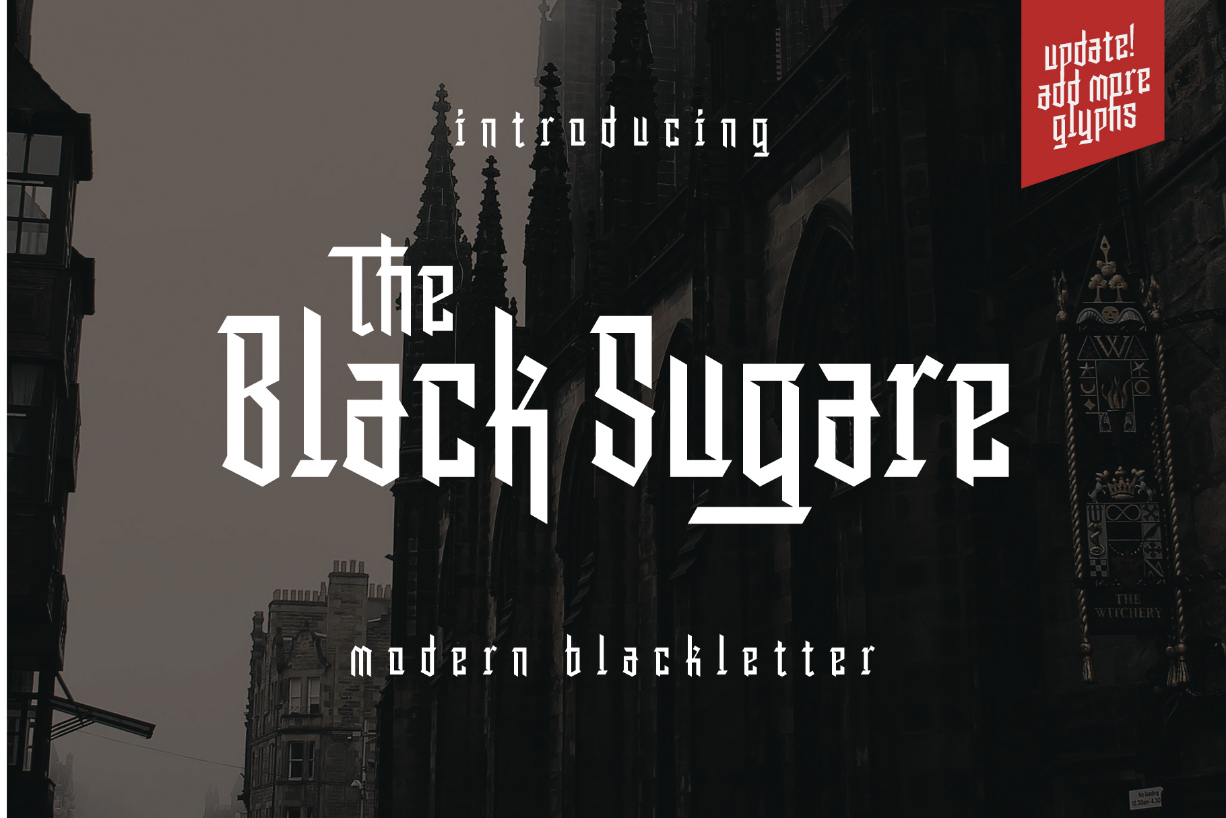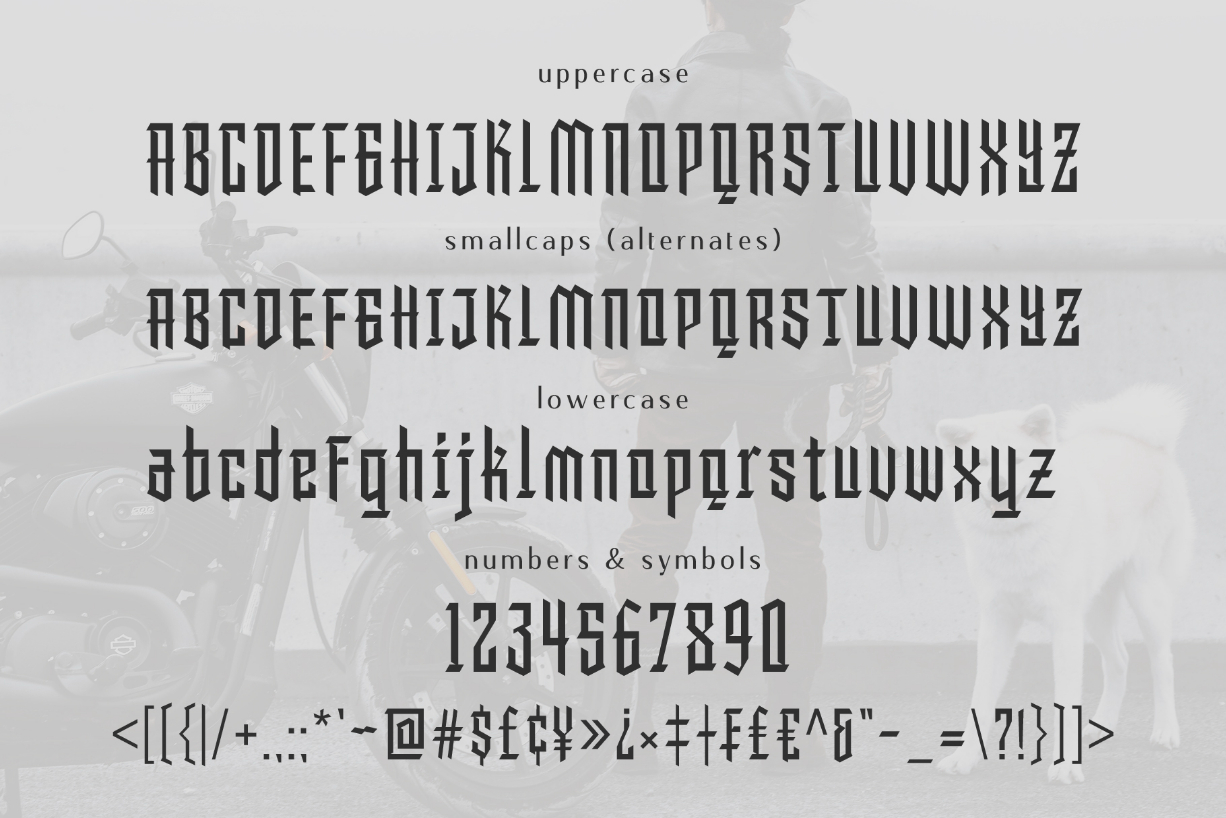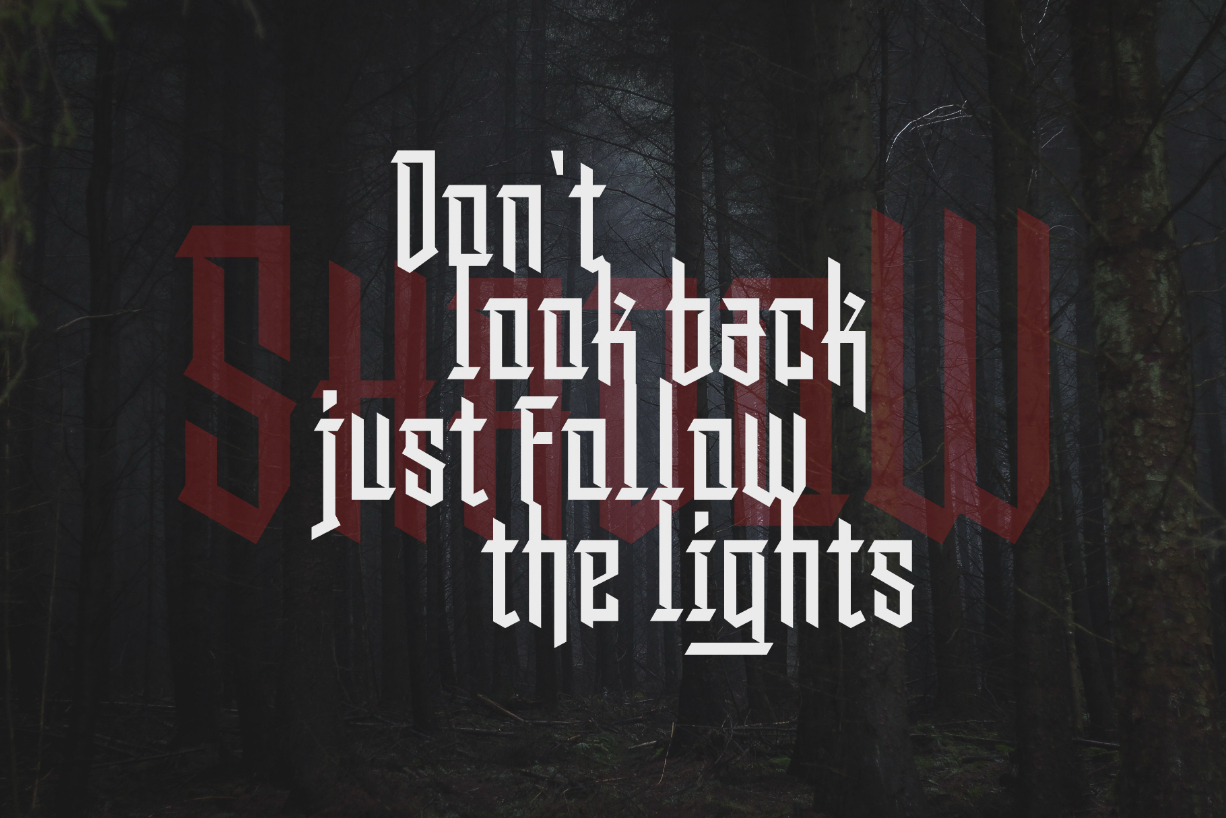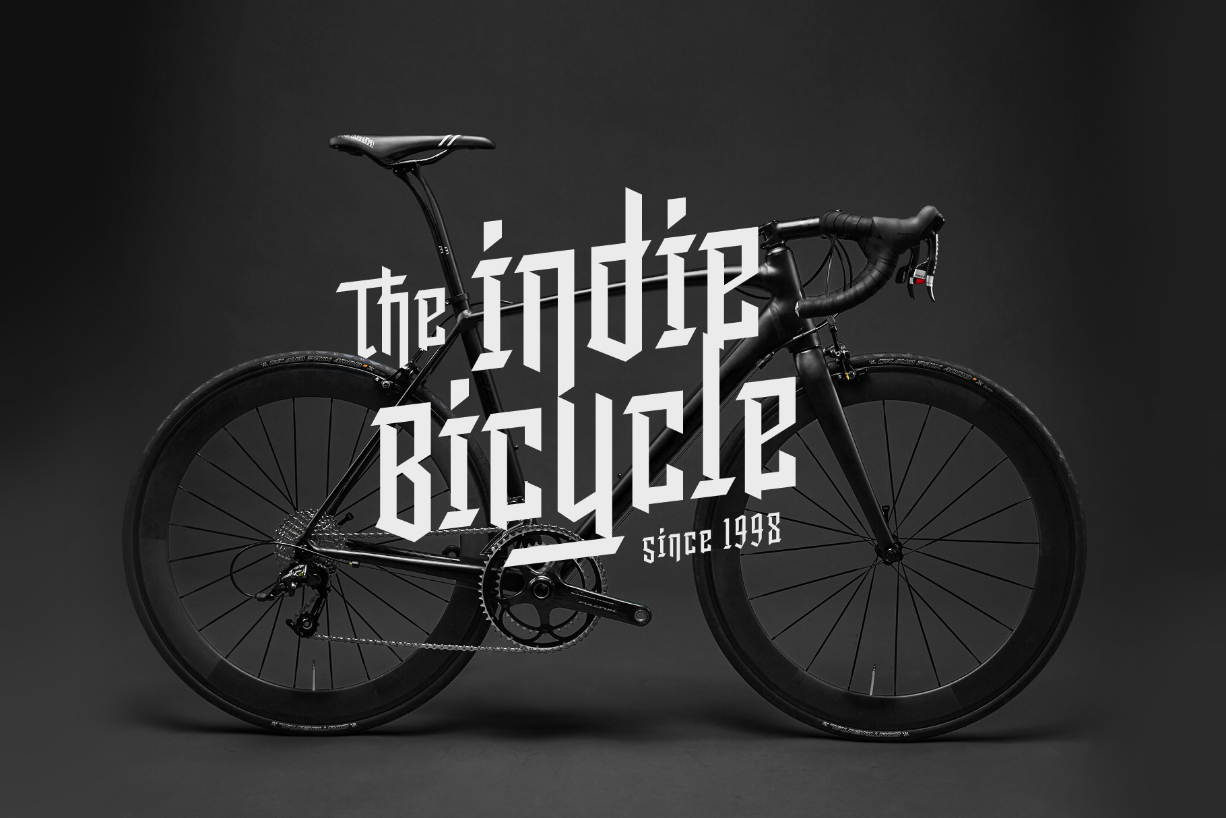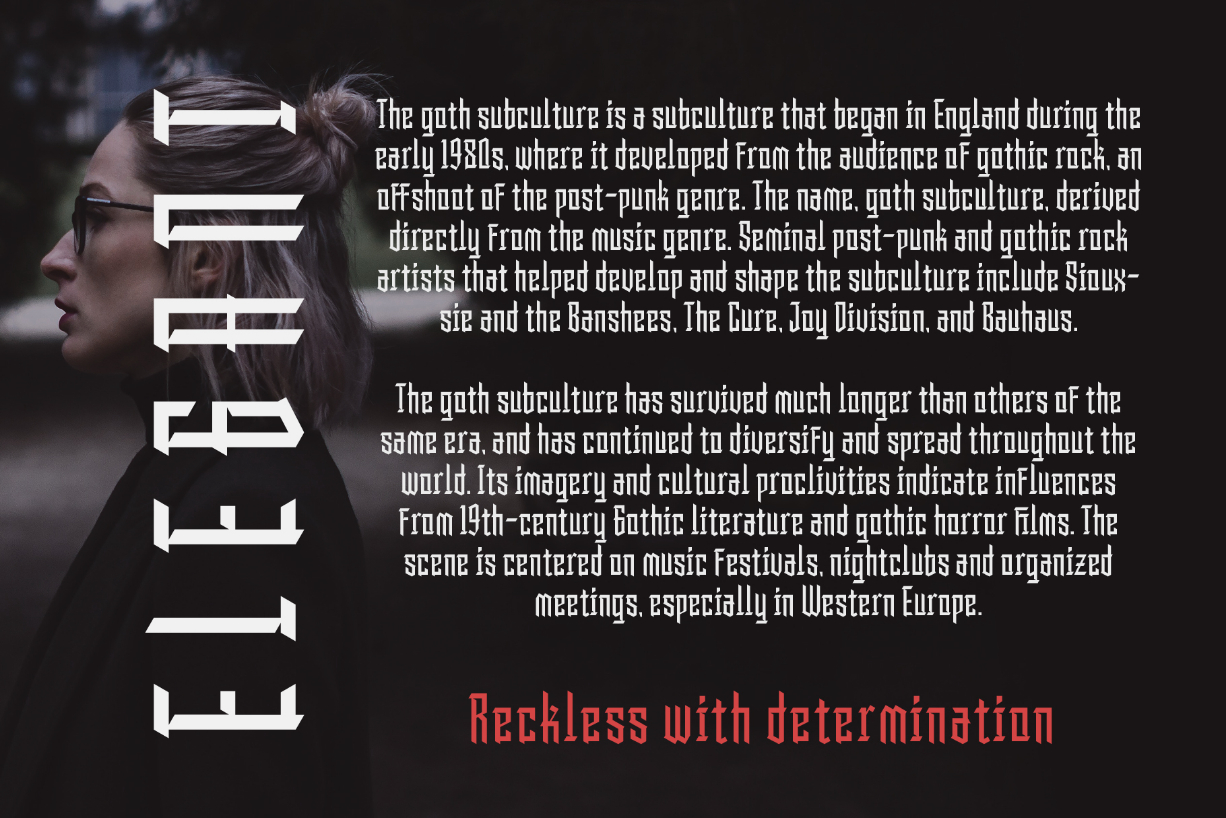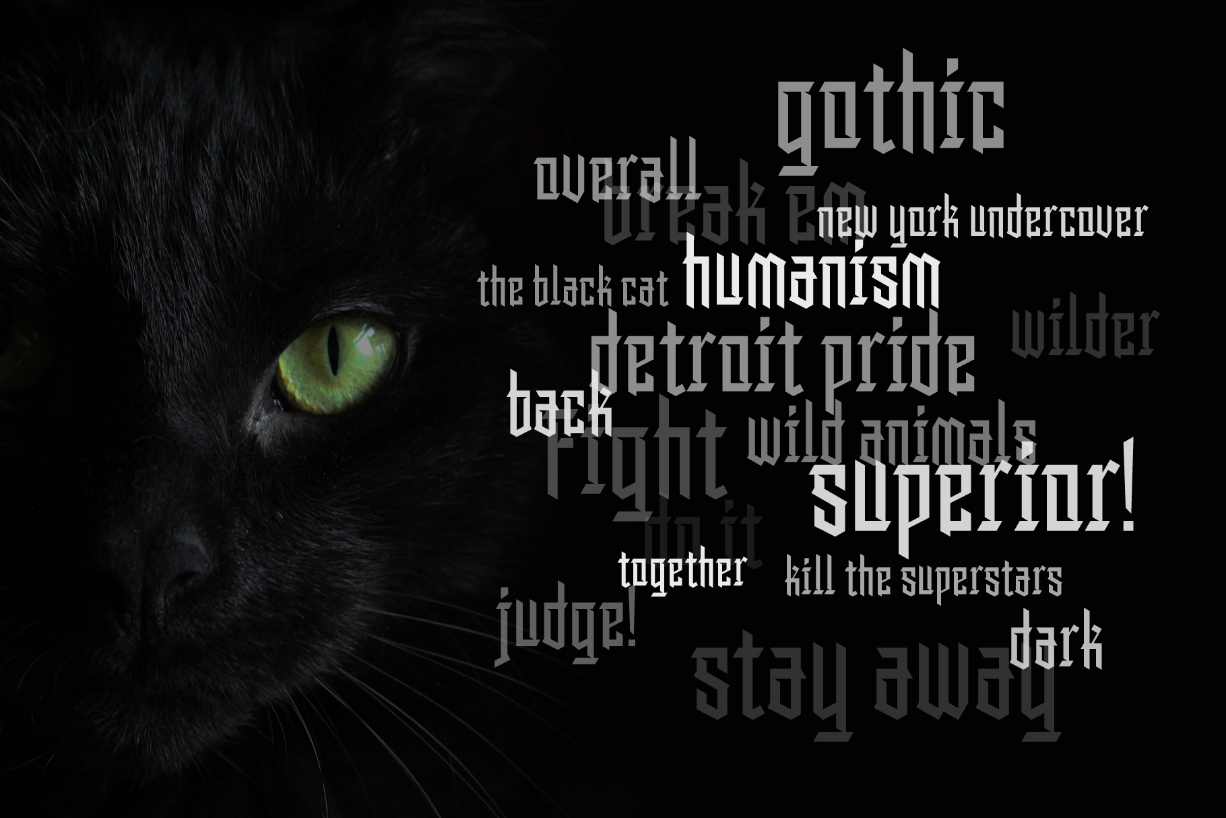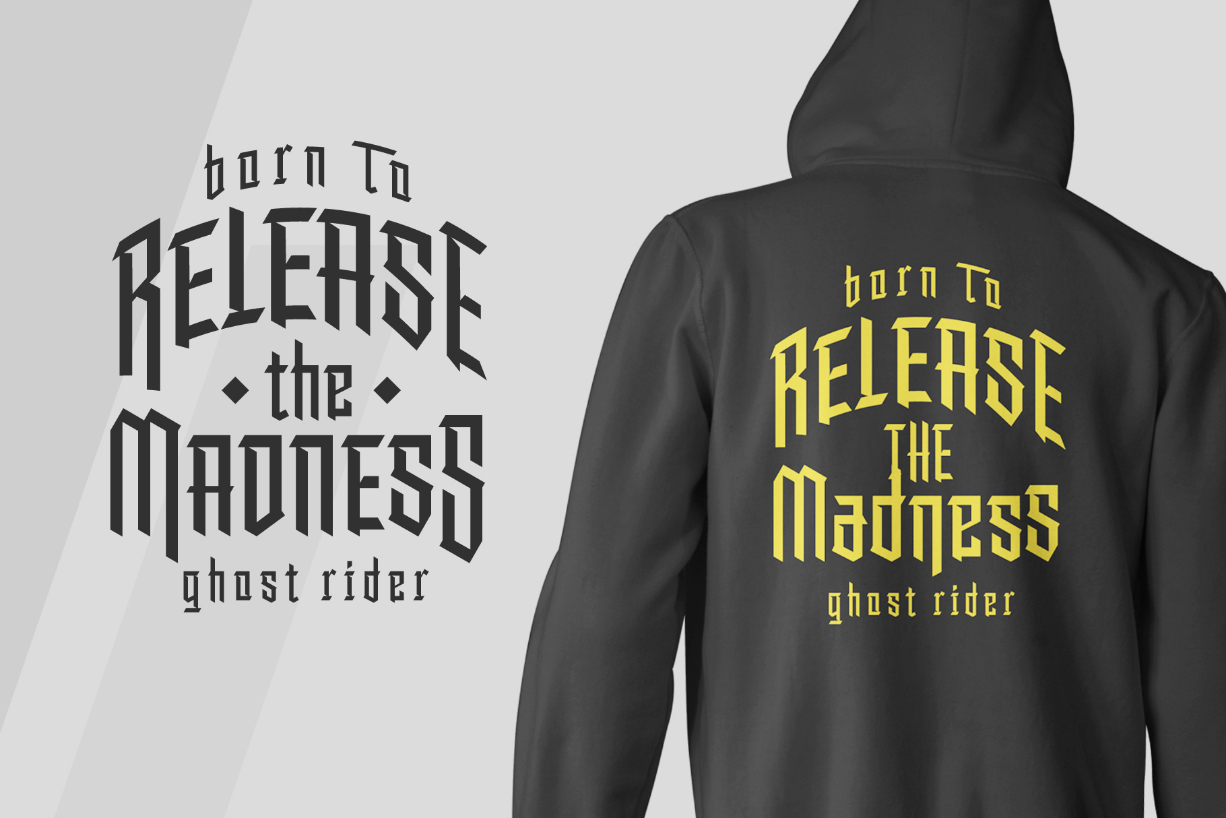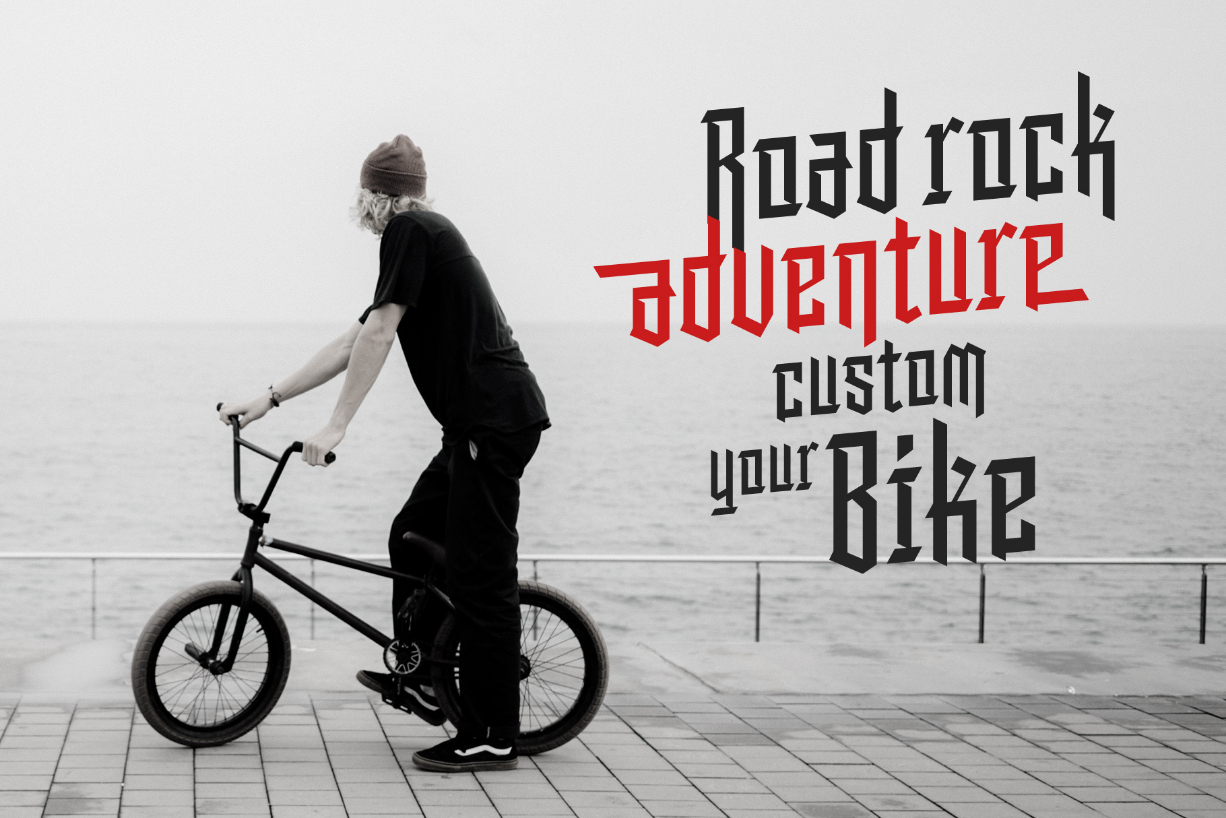
The Black Sugare Font
About The Black Sugare Font
Inspired by minimalist blackletters, The Black Sugare perfectly combines gothic era and geometric shapes. Use it to turn any design project into a stand out.